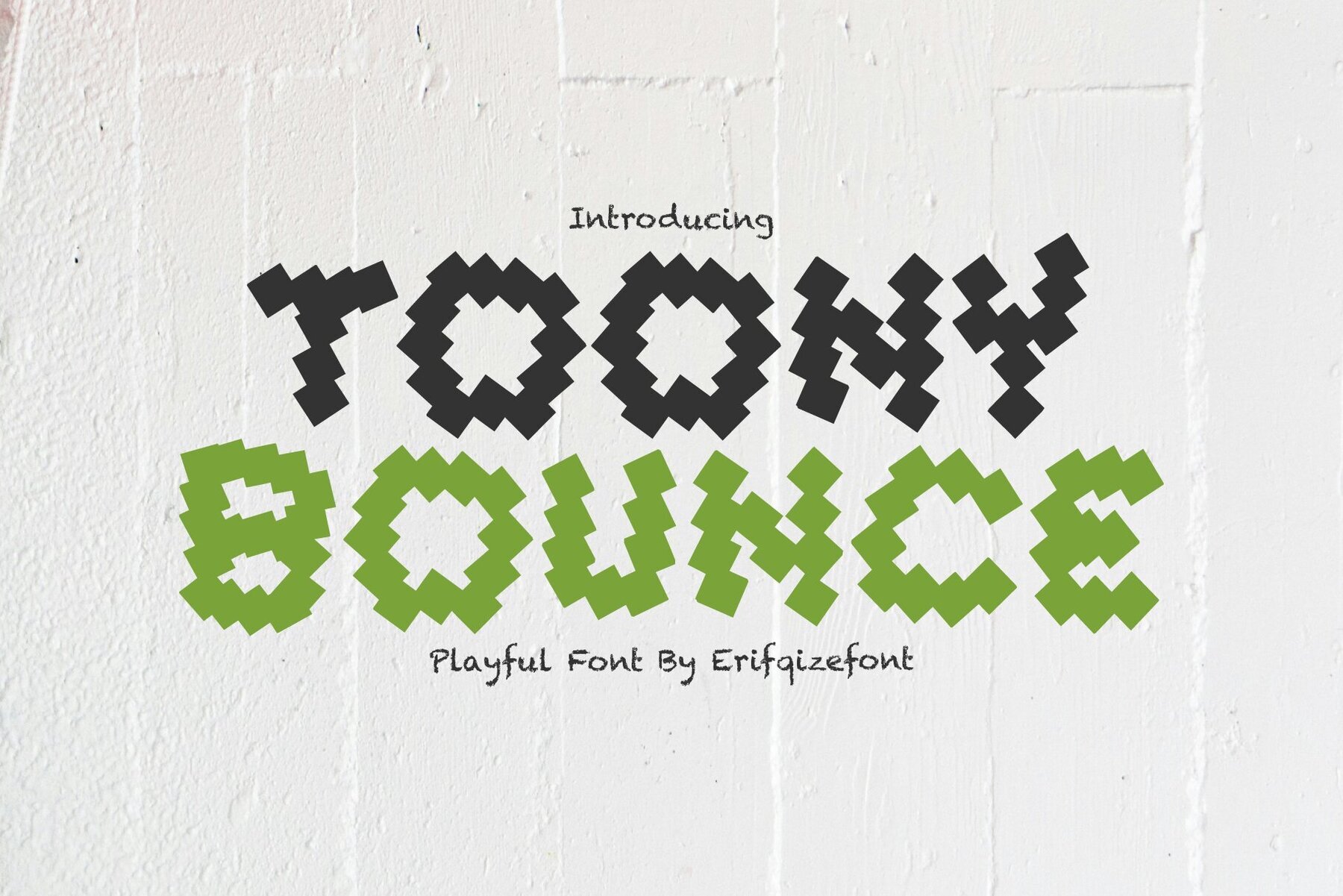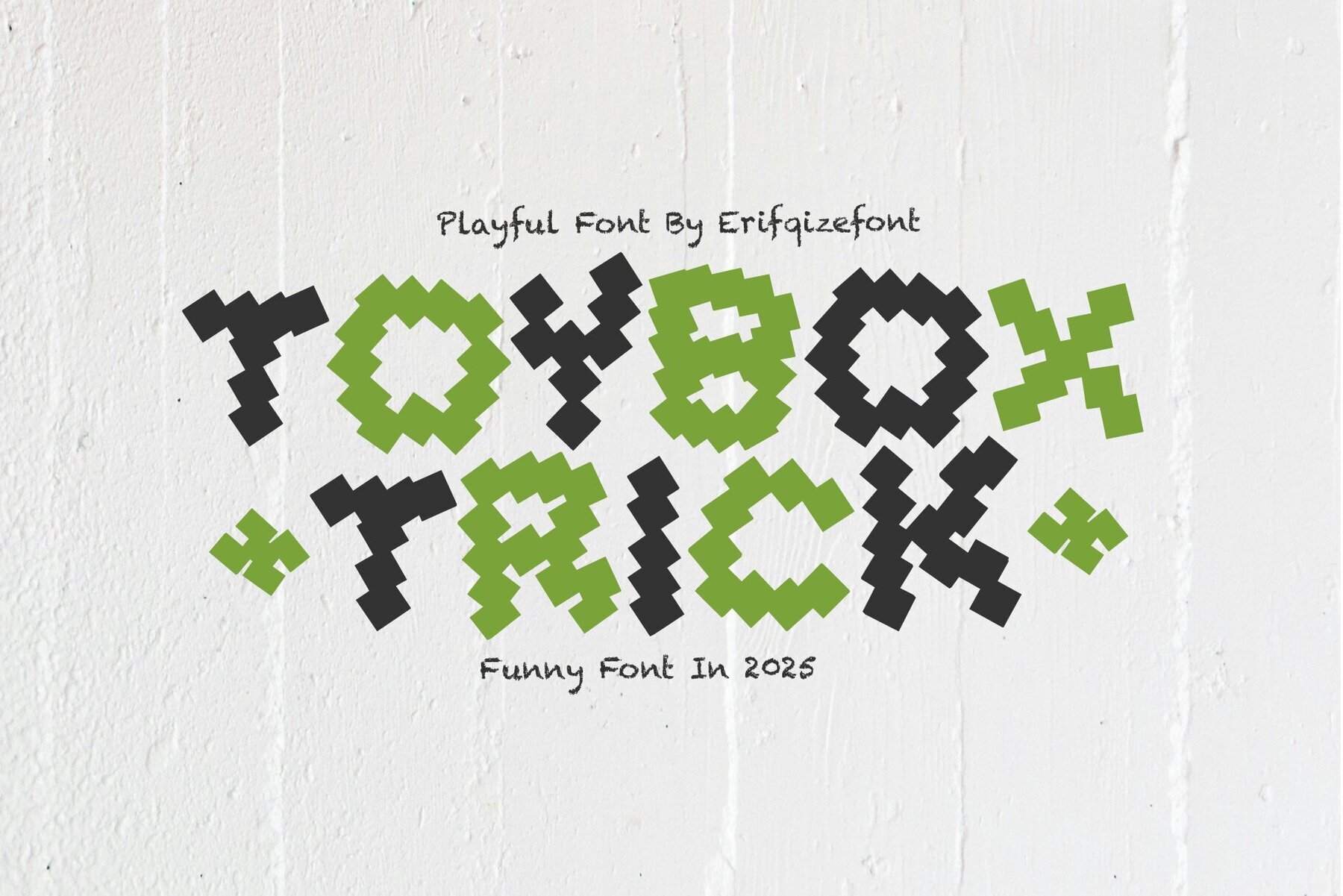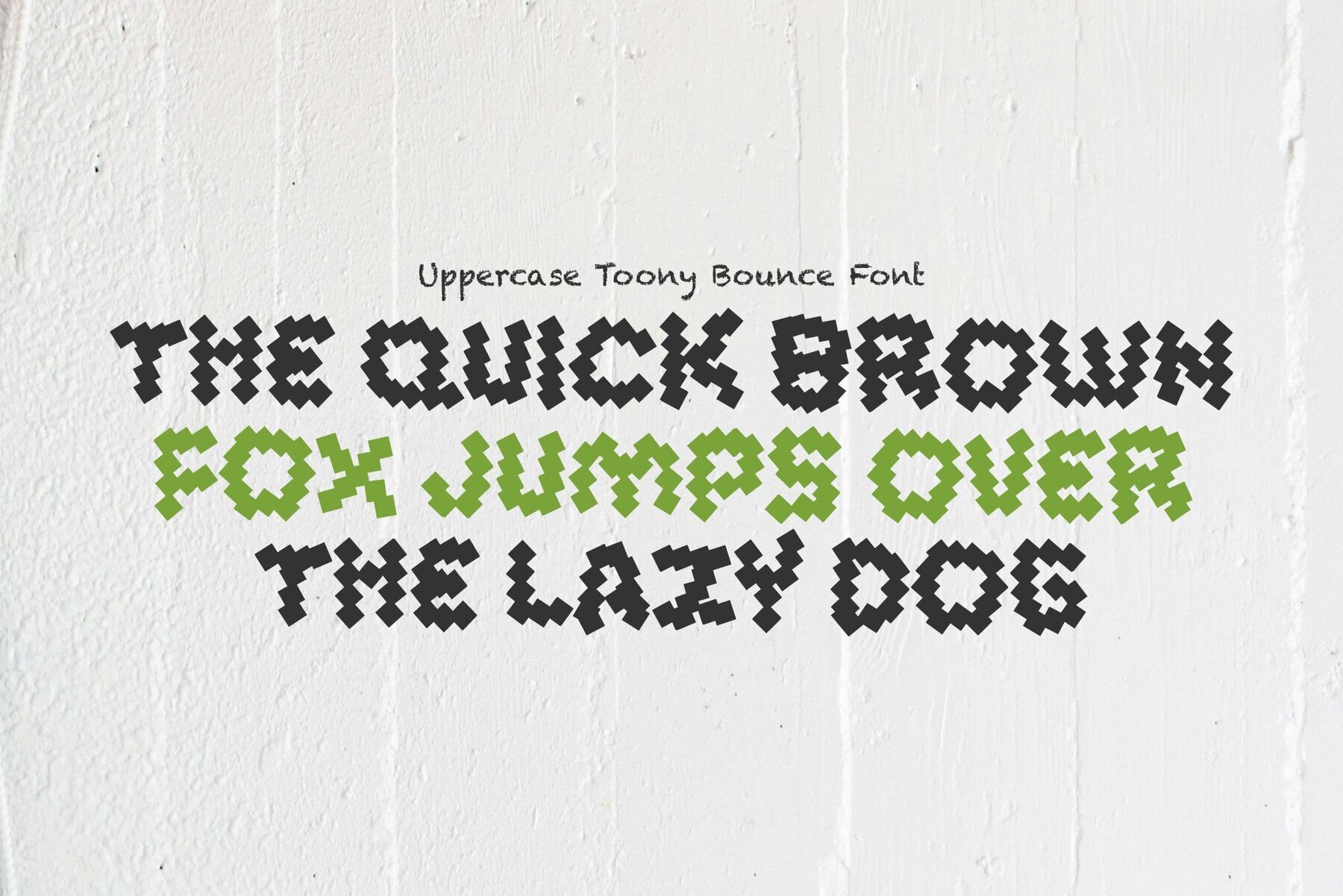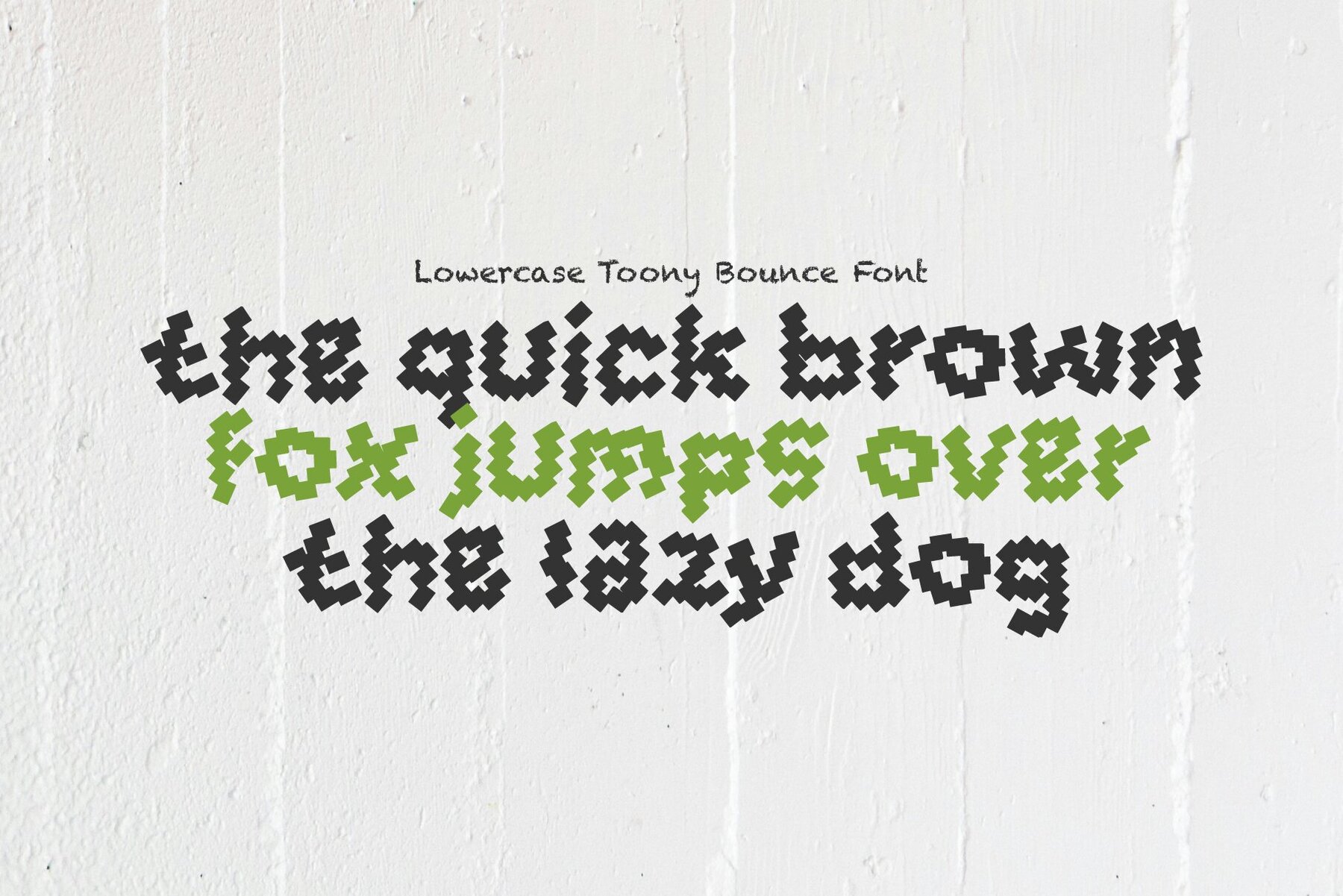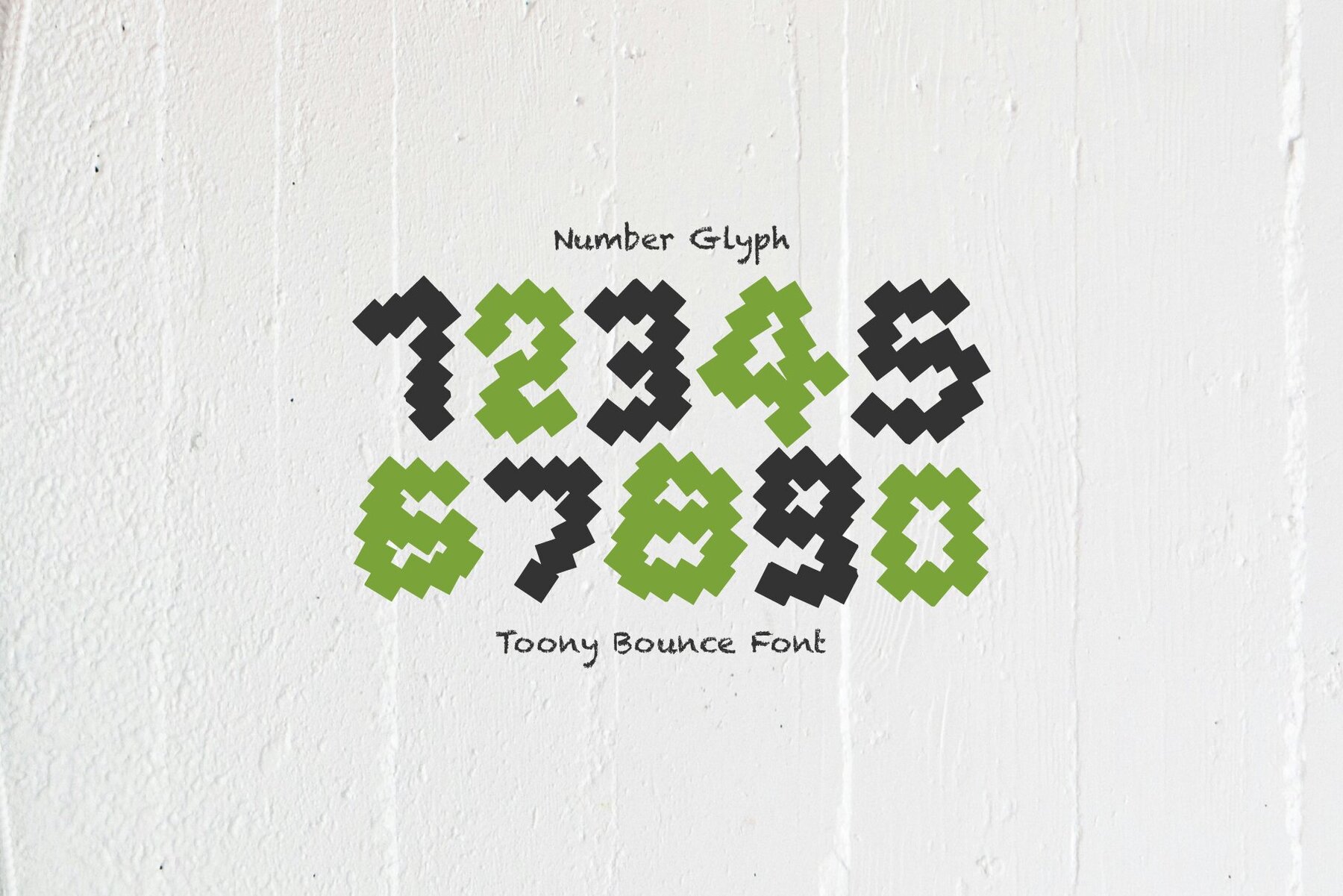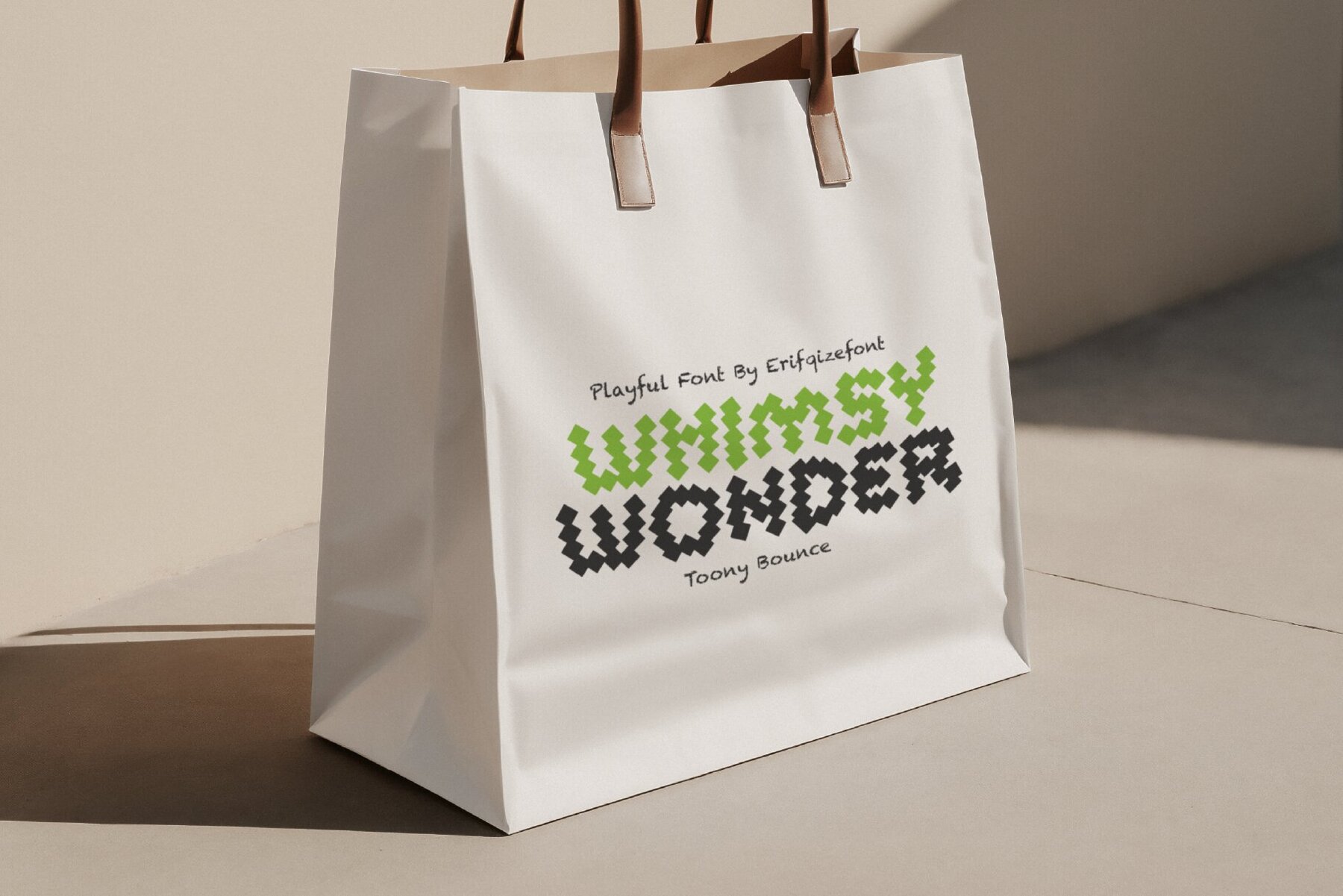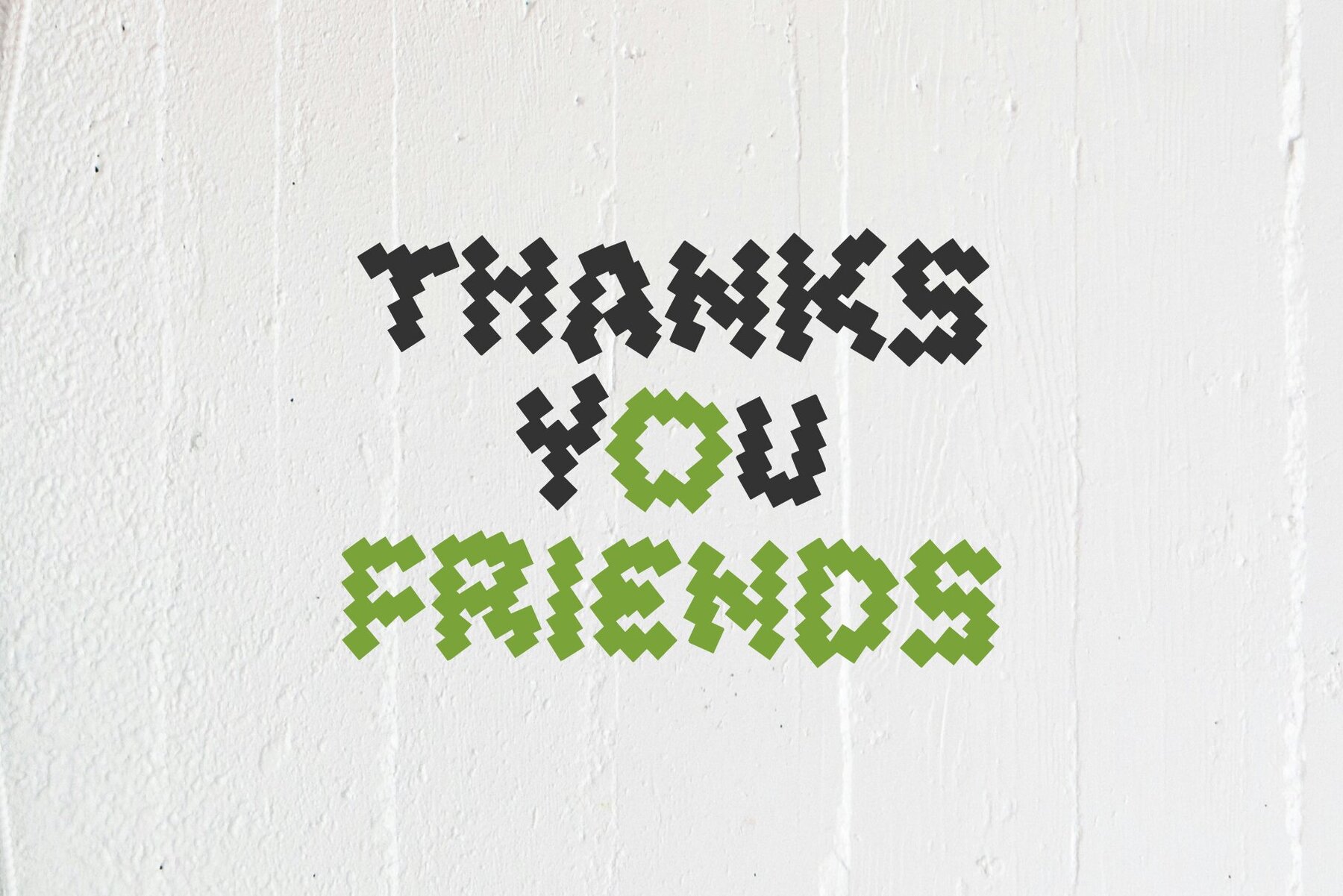
Toony Bounce Font
Toony Bounce
Toony Bounce offers a lively and animated experience with its quirky, zigzag shapes that add bounce and flair to every letter. Perfect for catching the eye, this font injects a joyous spirit into any design, making it a top choice for children’s posters, toy packaging, or playful branding. Whether you're looking to infuse a project with bold cheer or simply highlight its fun aspects, Toony Bounce stands out with its energetic character.Toony Bounce - Playful Display Font